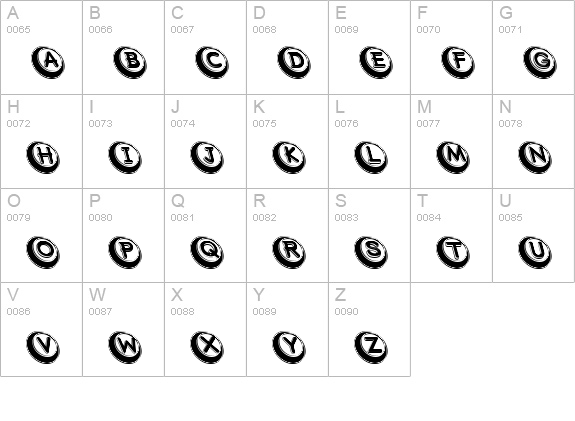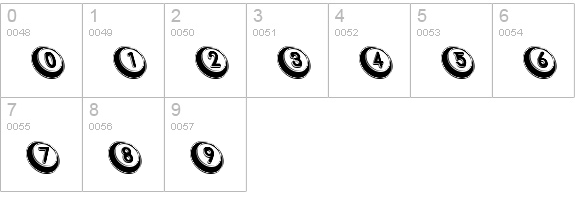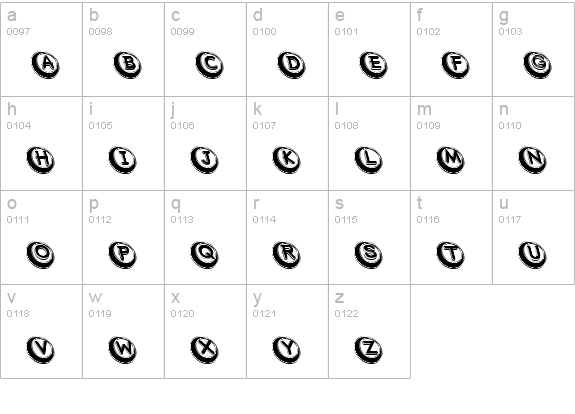
COM (sRB) Font Details
The COM (sRB) font is a versatile and modern typeface that exudes elegance and sophistication. Its sleek and stylish design makes it perfect for a wide range of creative projects, from branding to editorial design. This font features clean lines and a contemporary feel that will make your text stand out on any platform. And the best part? The COM (sRB) font is completely free to download at FontsMarket.com. With just a few clicks, you can add this stunning typeface to your collection and start using it in your projects right away. Don't miss out on this fantastic opportunity to enhance your designs with the COM (sRB) font – download it today and take your creativity to the next level!